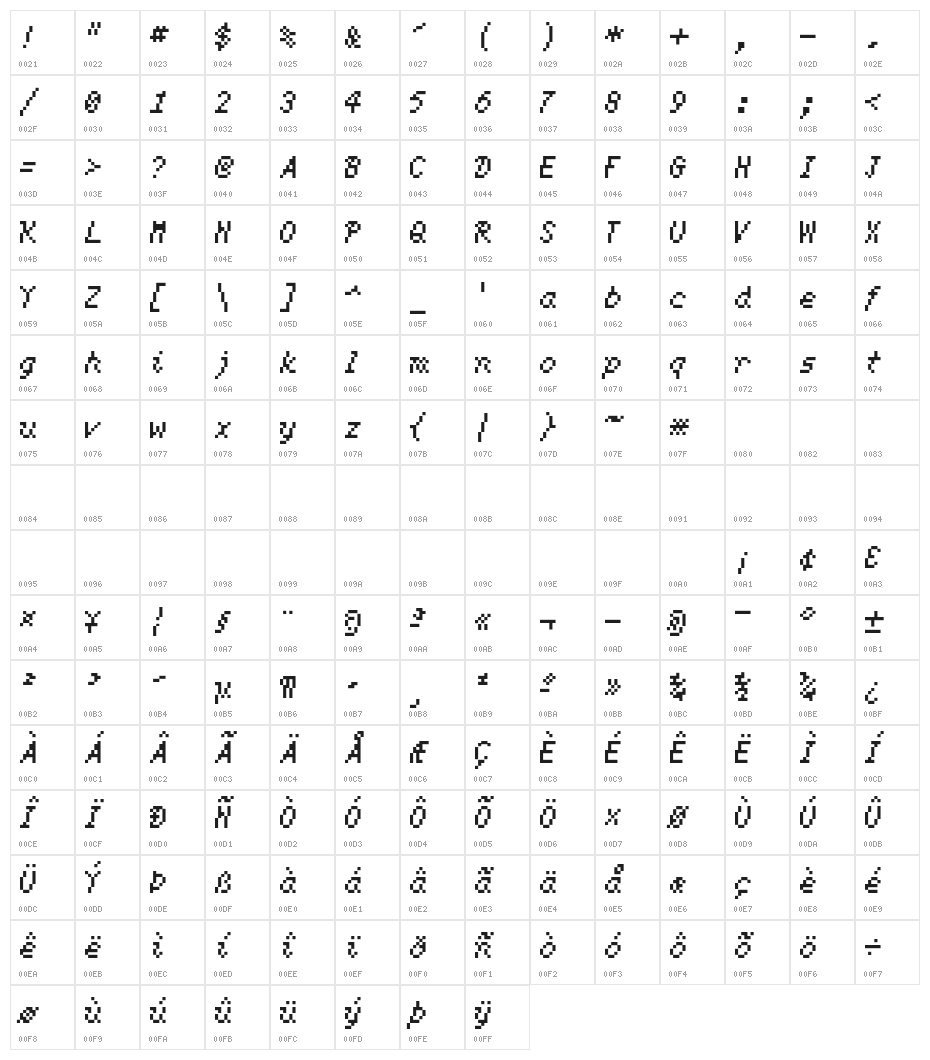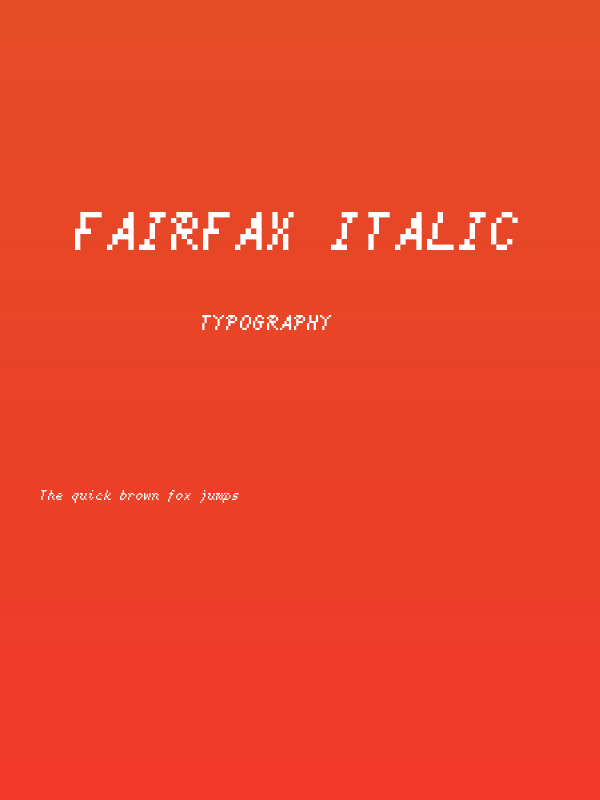
Fairfax Italic Font
Fairfax Italic Description
This font features a pixelated, blocky design reminiscent of early digital or video game typography. Each character is composed of square pixels, giving it a distinctly retro and technological feel. The uppercase and lowercase letters maintain a consistent style, with slight variations in height and width to differentiate them. Numbers and special characters follow the same pixelated pattern, ensuring uniformity across all glyphs. The italic style adds a subtle slant, enhancing its dynamic appearance while maintaining legibility. This font is ideal for projects that aim to evoke nostalgia or a digital aesthetic.
| Overall Style | Retro, Digital |
| Use Case | Headlines, Logos, Digital Art |
| Proposed Projects | Ideal for video game design, retro-themed graphics, digital art projects, and tech-related branding. |